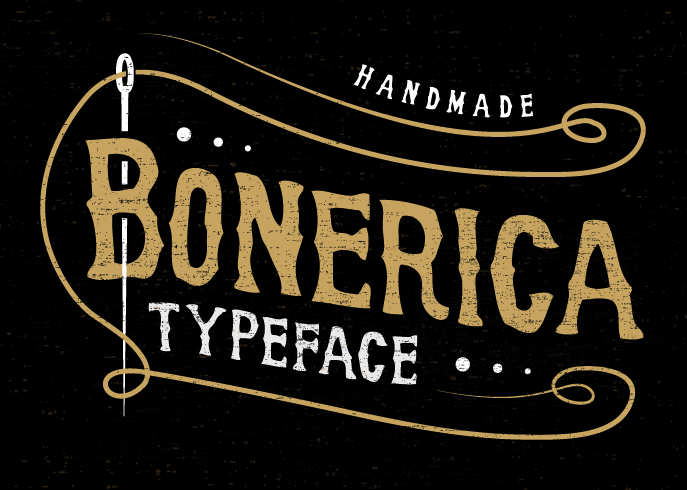
Flavor Type [Panji Nugraha]
Flavor Type is an Indonesian design studio located in Bandung in which Panji Nugraha, Ilham Herry and Maghrib Lab are involved. Panji Nugraha is the Bandung, Indonesia-based designer of Caferus (2014), Murmers (2014, Victorian), Bonerica (2014, a Victorian typeface), Vanderchalk (2014) and Glowist (codesigned in 2014 with Ilham Herry and Maghrib Lab at Flavor Type).
In 2015, he made Carneval (a fun hand-drawn typeface family with a possibility of layering), To Dear (brush script typeface), Allic (brush typeface), Vidiz (a swashy slab serif poster typeface), Levitte Script, Leila, Holisun (brush face), Vacamous, Summerica, Callalily, Vicent (watercolor brush), Morning Sugar (brush script), Blacky, Lonssa (hand-drawn type, with ornaments), Heartwell (a wonderful brushy poster script), Noside (a splashy brush), Toxine and Fruty.